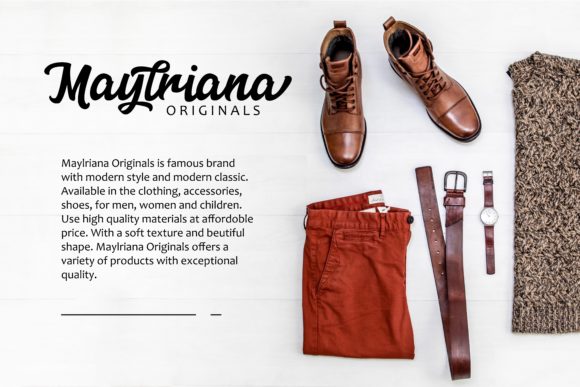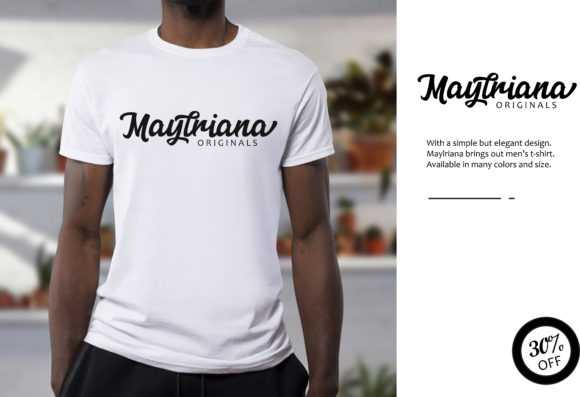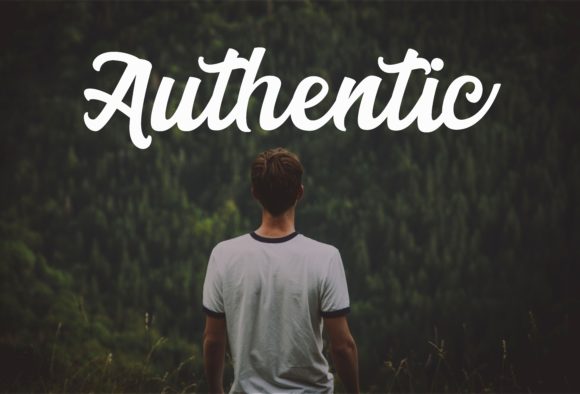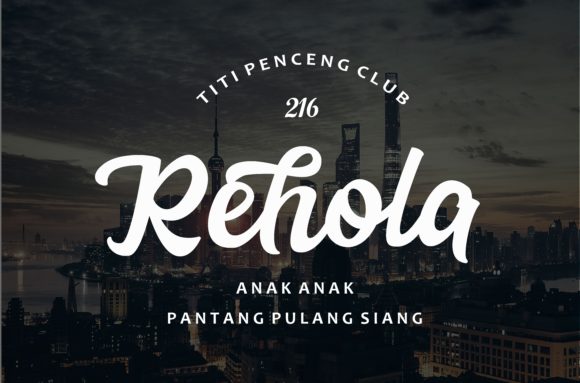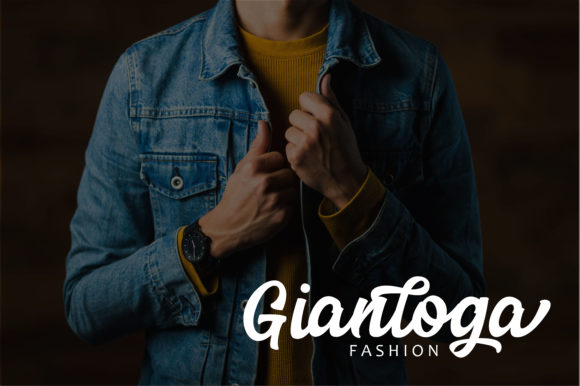
Gadhen Script Font
About Gadhen Script Font
The Gadhen is a striking script font. It has a natural handwritten touch which is perfect for adding a personal touch to your designs.
It can be used for logos, badges, apparel, and much more!